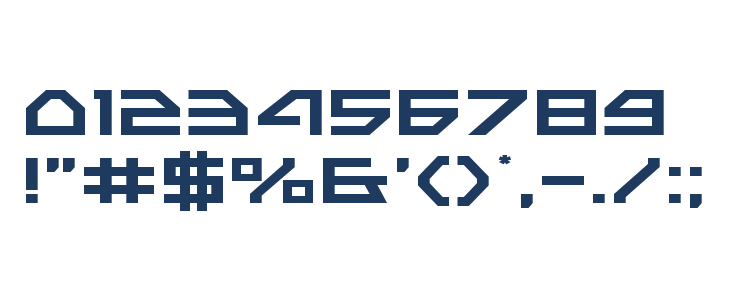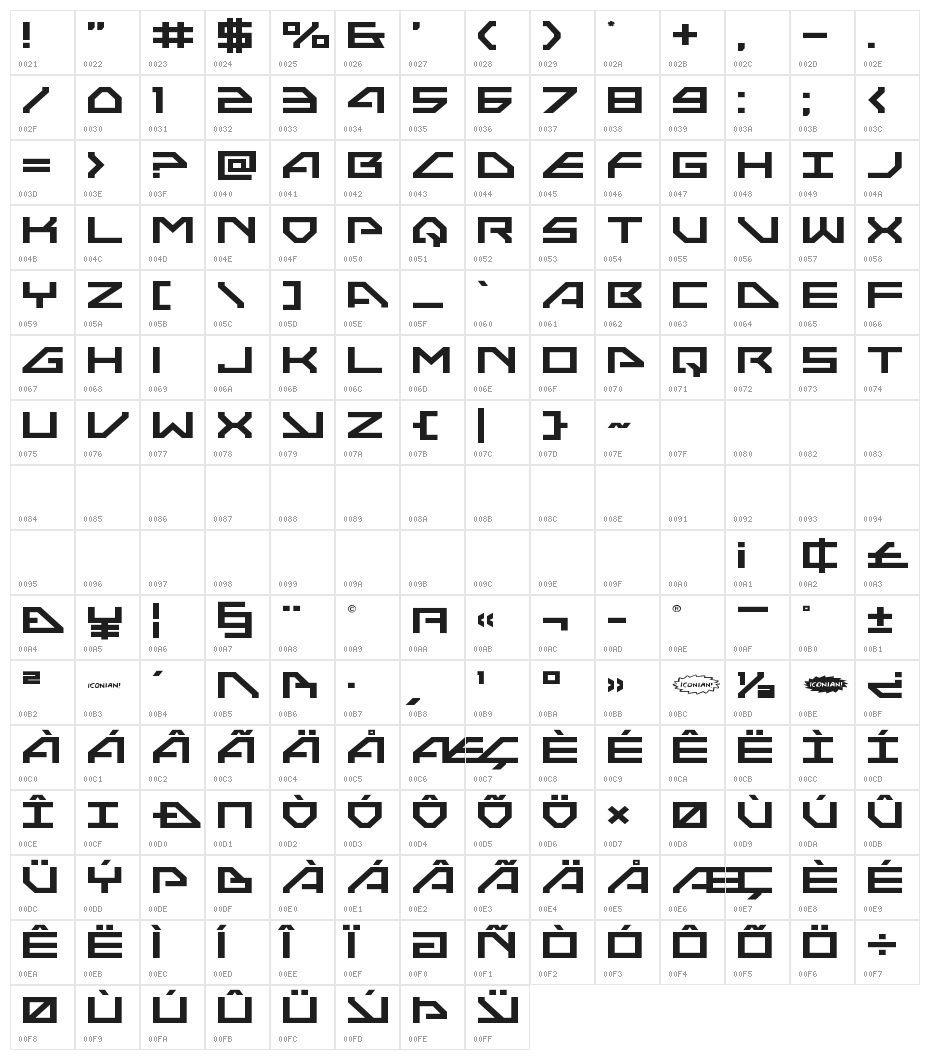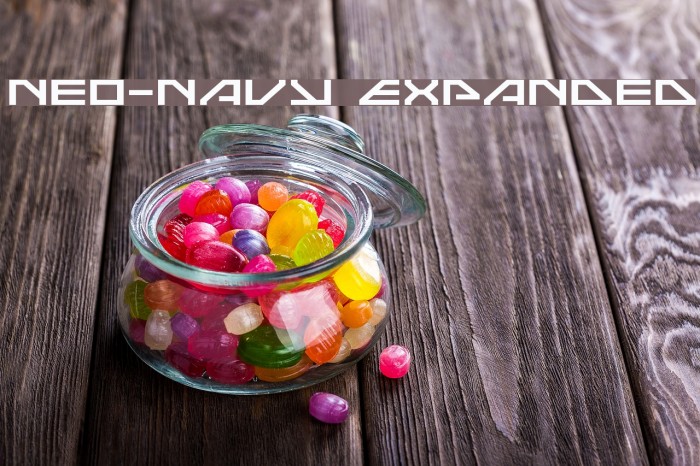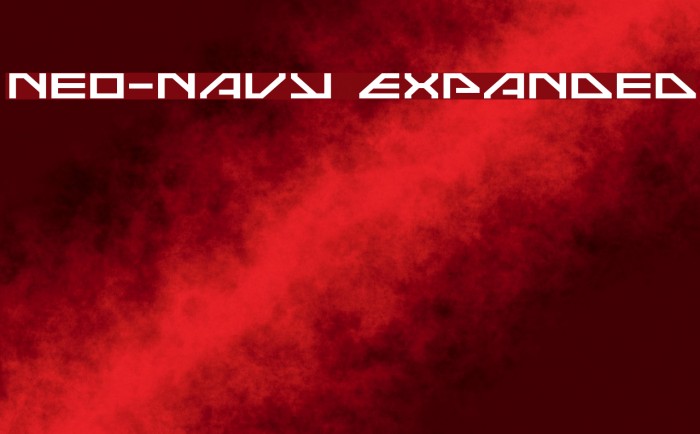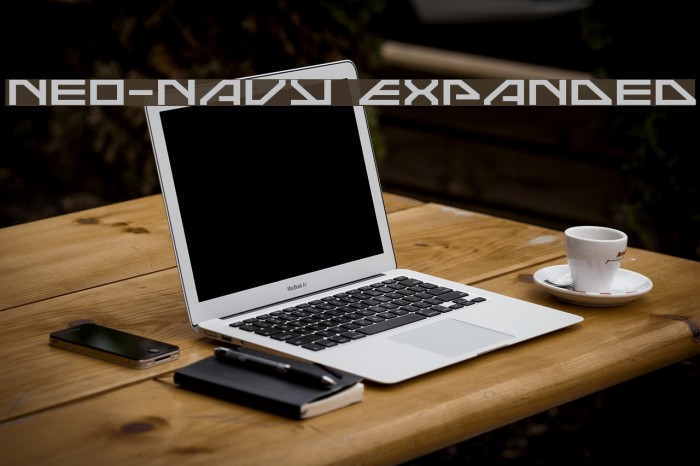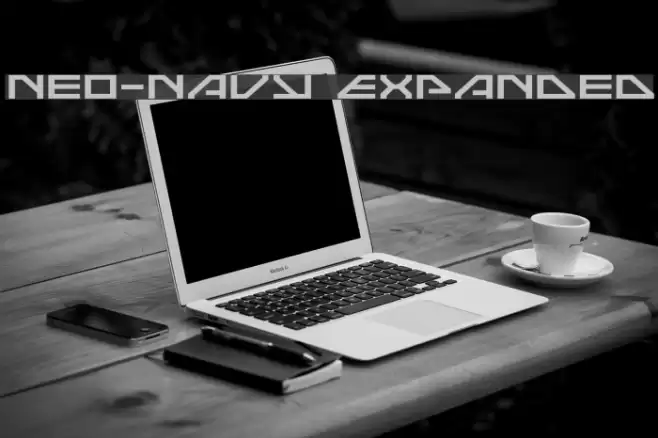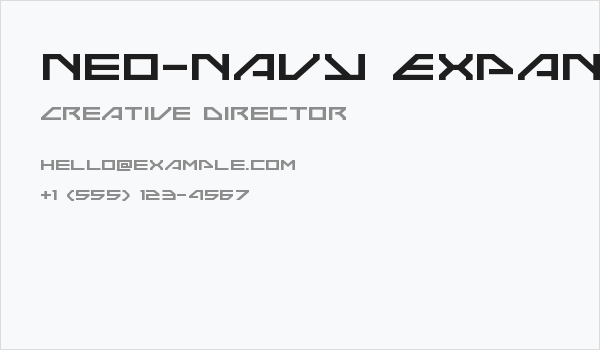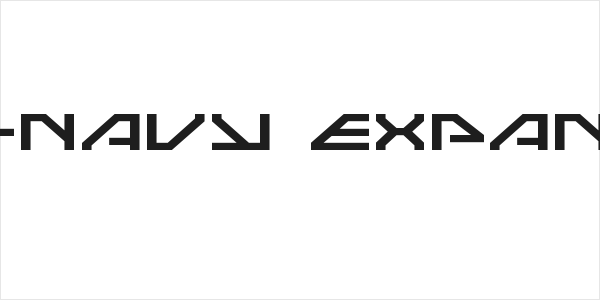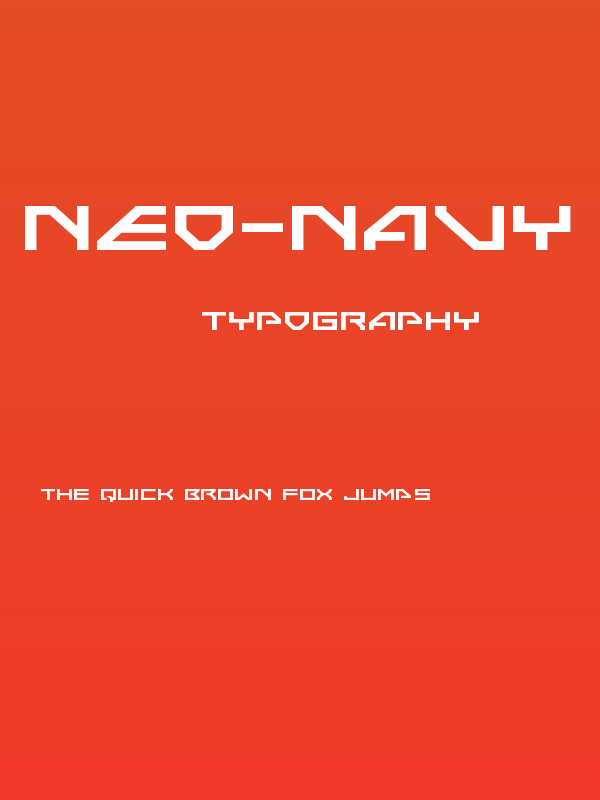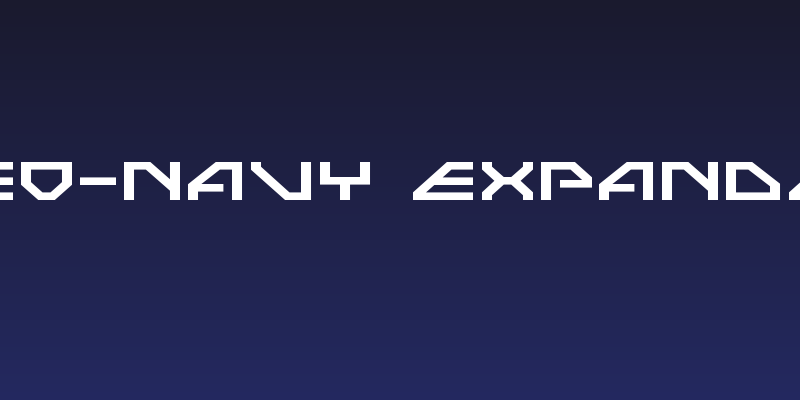
Neo-Navy Expanded Font
Neo-Navy Expanded Description
This font features a bold, geometric design with sharp angles and a futuristic aesthetic. The characters are constructed with consistent line thickness, giving it a uniform appearance. The uppercase and lowercase letters share similar structural elements, enhancing the cohesive look. The numbers and special characters maintain the same angular style, making them easily recognizable and visually striking. This font's expanded width and strong presence make it ideal for attention-grabbing designs.
Proposed ProjectsIdeal for sci-fi themed projects, technology branding, video game titles, and modern poster designs.